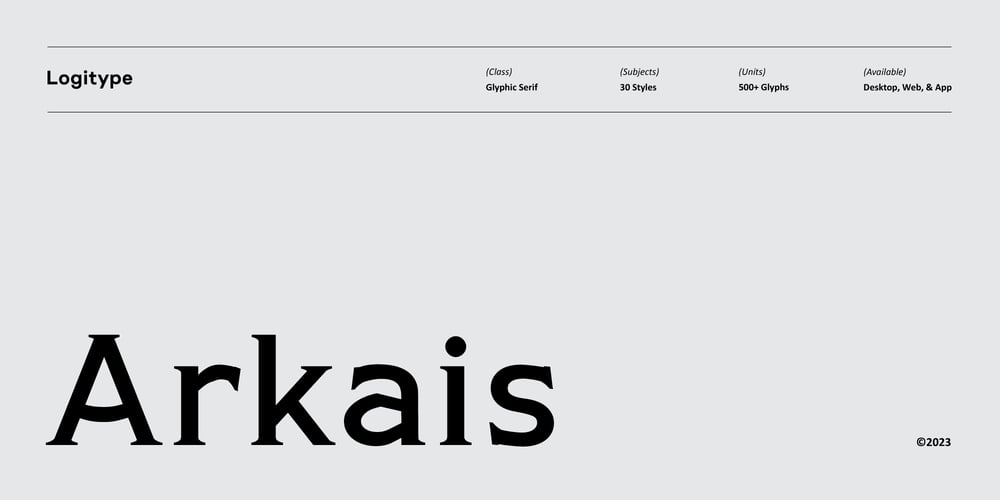
Arkais Font Family was designed by Irgy Widhiarma and published by Logitype. Arkais contains 30 styles and family package options. Introducing Arkais, a glyphic serif typeface inspired by the rhythmic construction of Gothic architecture. This unique typeface is characterized by slightly broken shoulder and bowl shapes, offering a fresh and classic feel. With contrasting brackets, consistent barb, and beak shapes, Arkais brings a touch of elegance to any project.Arkais features five weight variants—light, regular, medium, bold, and extra—as well as three width options: condensed, normal, and expanded. Each font family also includes italic styles, providing even greater versatility. Equipped with OpenType features, Arkais offers multiple character alternatives, ligatures, small caps, and more, ensuring a tailored look for your designs.Designed as an alternative to current trends, Arkais is perfect for creating strong headers or captivating display text. The typeface supports over 500 basic Latin glyphs, making it suitable for a wide range of projects.